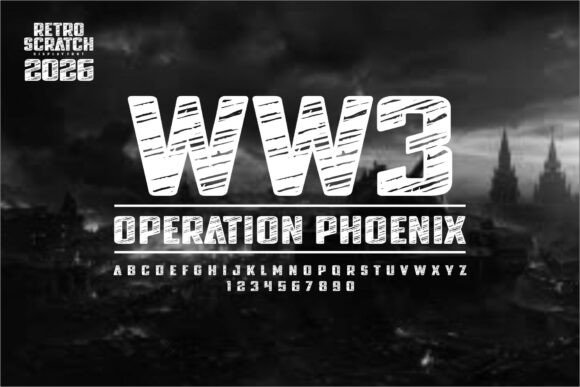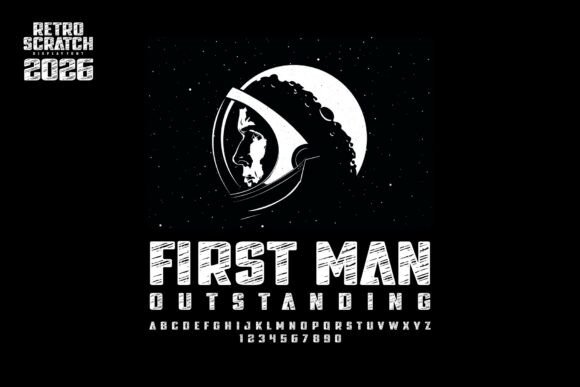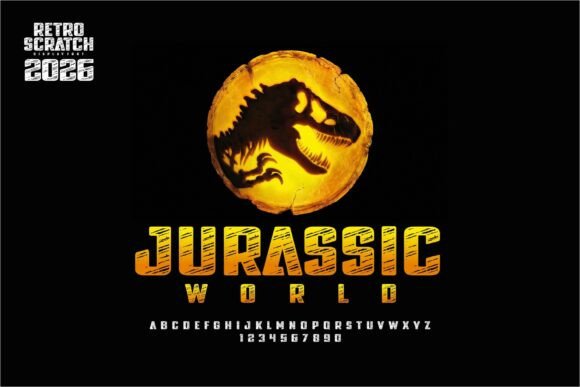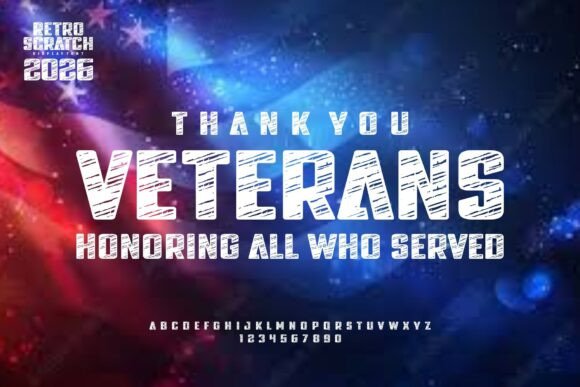
Introduction to Retro Scratch Font
This font is highly versatile for creative projects that need to feel “raw” or “energetic.
” It is particularly effective and good for: – Apparel Design: T-shirts, hoodies, and streetwear branding – Sports & Fitness: Gym logos, team posters, or athletic event banners.
Key Features of Retro Scratch Font
Why Choose Retro Scratch Font?
Retro Scratch Font offers exceptional quality and versatility, making it a valuable addition to your design toolkit. Whether you’re creating for personal projects or commercial use, Retro Scratch Font delivers professional results.